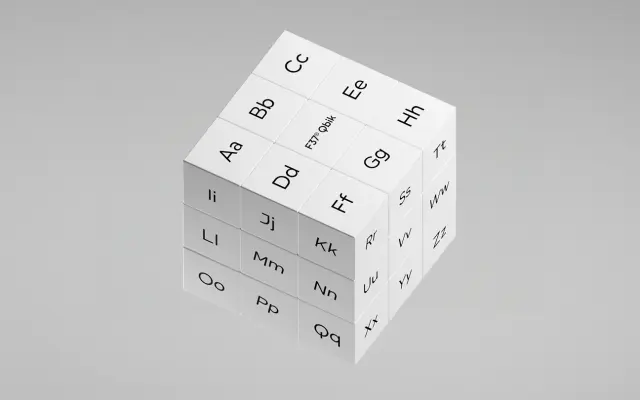
F37 Qbik
A hardcore geometric sans across thirty styles with a distinctive Rotalic cut, condensed widths and weights up to Black.
F37 Qbik is Rick Banks' hardcore geometric sans, sold by F37 as bold, powerful and uncompromising. The family runs to thirty styles across five weights from Light to Black, with both standard and condensed widths and an italic plus a rotated Rotalic cut at every weight, an unusual feature that softens Qbik's edge when you want it. Reach for it on Swiss-style poster work, fashion, music and youth-focused identities, the foundry's own samples include 'KUNSTGEWERBESCHULE ZÜRICH' as a calling card.
F37 describe Qbik as a new slant on hardcore geometric sans, bold, powerful and uncompromising, although less so in its Rotalic form. A thirty-style family with five weights from Light to Black, full standard and condensed widths, and unusually a Rotalic (rotated) cut alongside the italic at every weight.